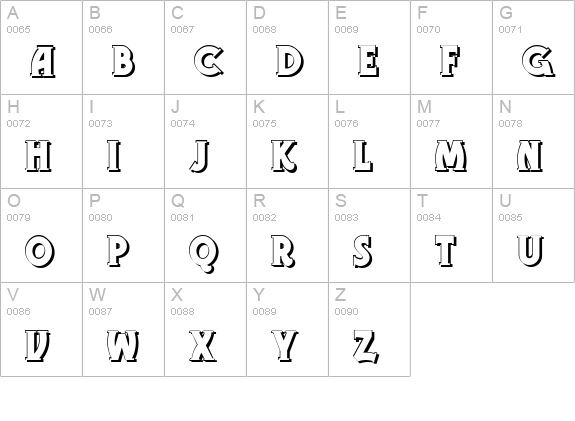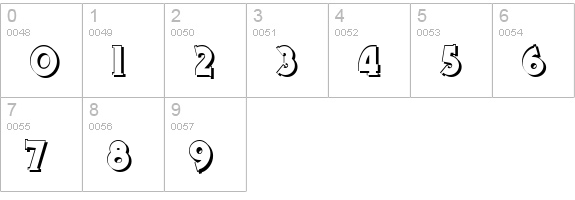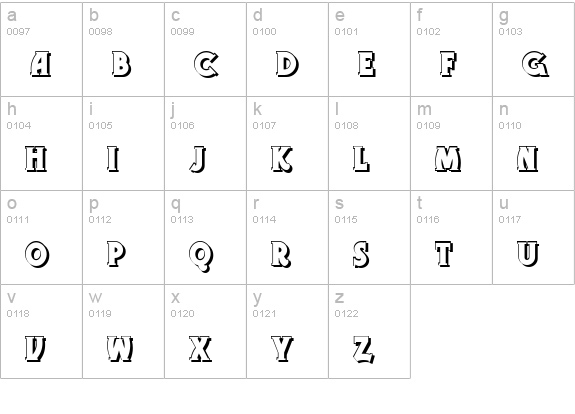
Gramophone Shaded NF Font Details
Gramophone Shaded NF is a beautifully crafted vintage-inspired font that exudes a sense of nostalgia and elegance. Its unique shading adds depth and character to any design, making it perfect for projects that require a touch of old-world charm. The intricate details of this font make it stand out from the crowd, giving your work a timeless and classic feel. What makes Gramophone Shaded NF even more appealing is that it is available for free download at FontsMarket.com. This means you can easily access this stunning font and incorporate it into your projects without any cost. Whether you're working on a vintage poster, a retro logo, or a classic book cover, Gramophone Shaded NF is sure to bring a touch of vintage flair to your designs. Download it today and add a touch of old-world charm to your next project.